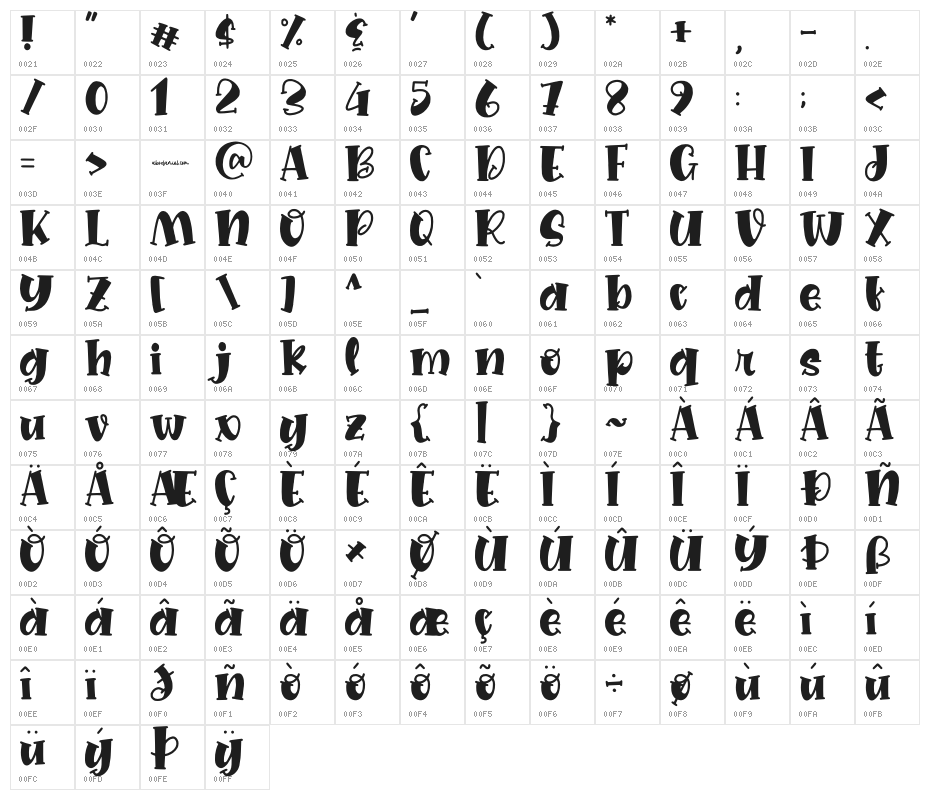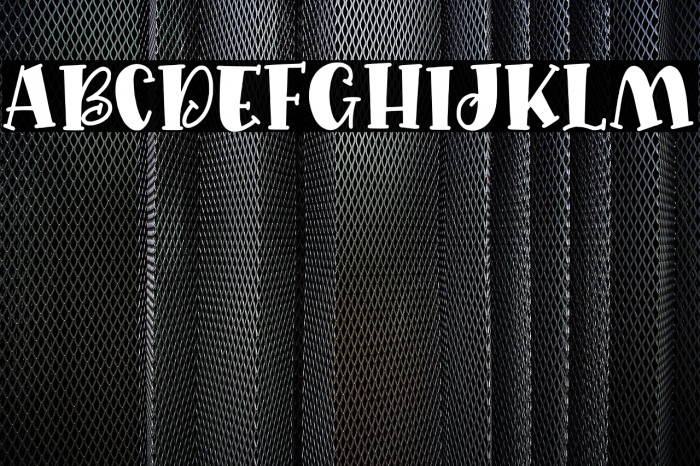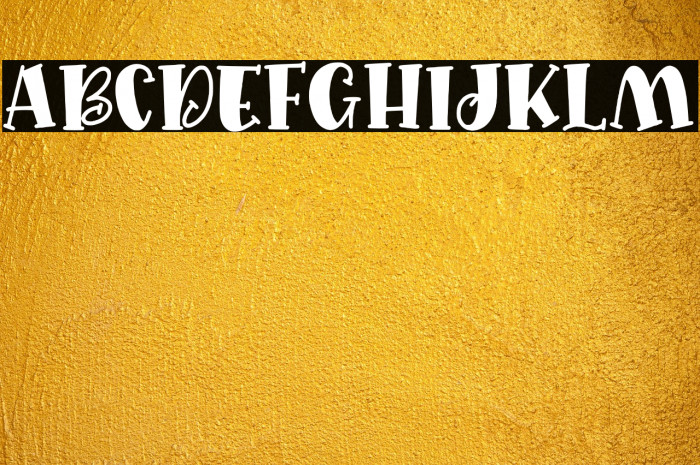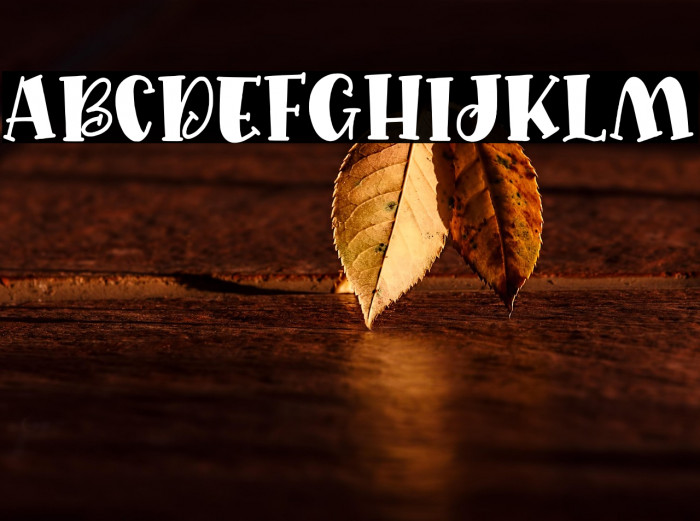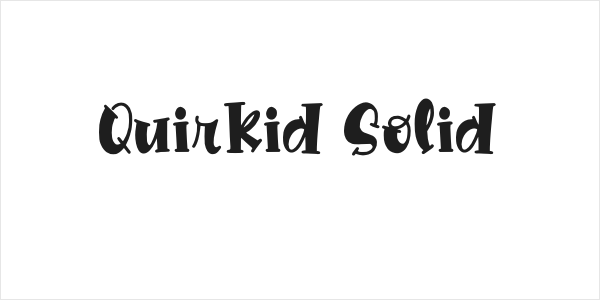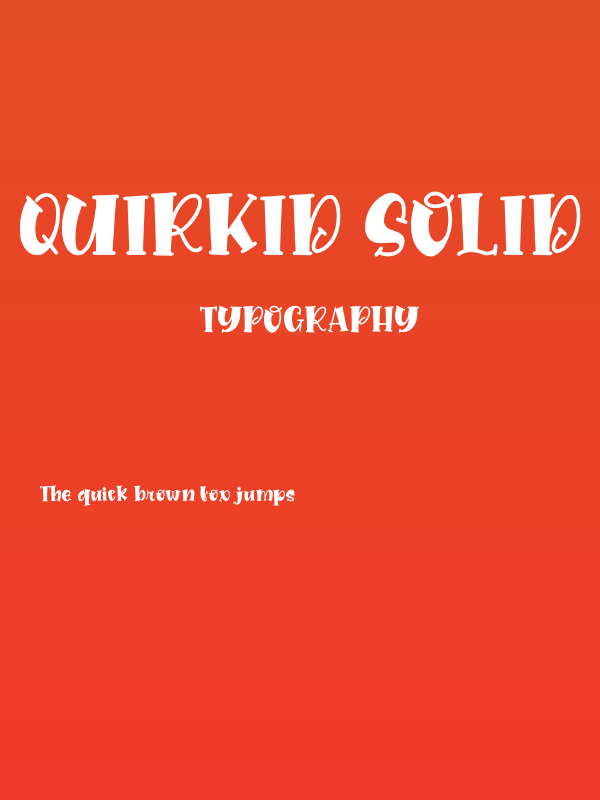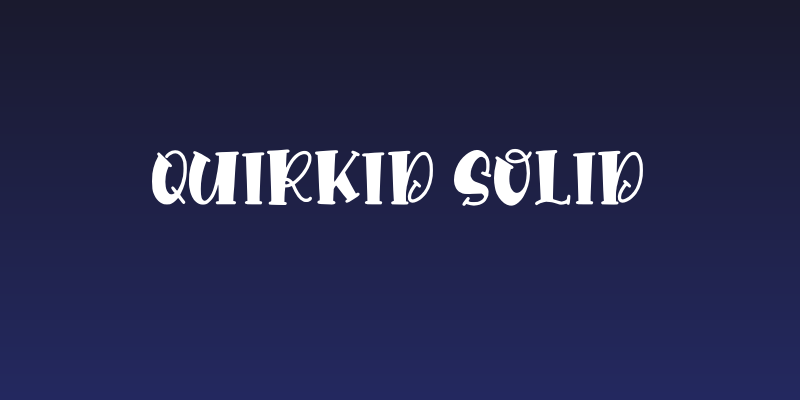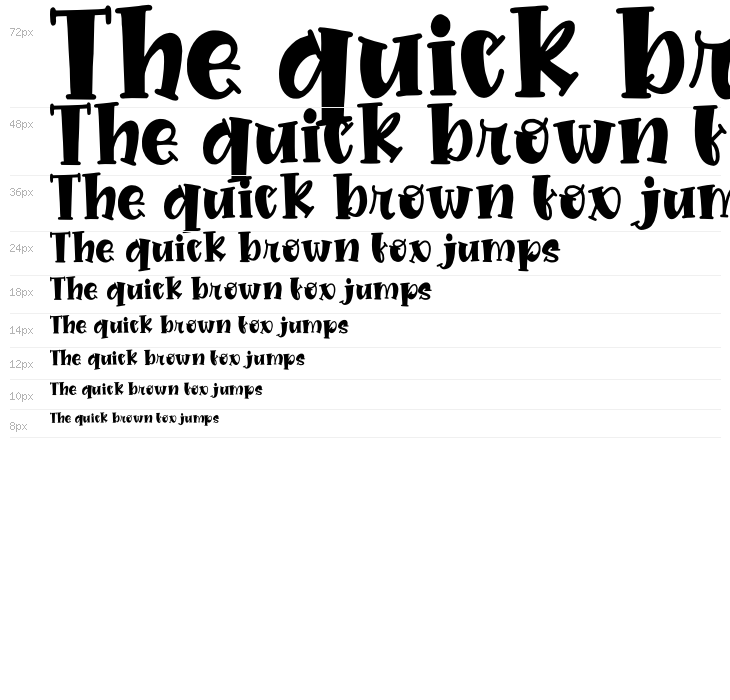
Quirkid Solid Font
Quirkid Solid Description
This font features a playful and whimsical style, characterized by its bold and dynamic letterforms. Each character exhibits a unique and quirky design, with varying stroke widths and unexpected curves that add a sense of movement and energy. The uppercase letters are particularly bold, while the lowercase letters maintain a consistent yet lively appearance. The numbers and special characters continue this theme, offering a cohesive and visually engaging set. The font's overall appearance is both fun and eye-catching, making it suitable for creative and informal applications.
| Proposed Projects | Ideal for children's books, playful branding, creative posters, and any project requiring a fun and energetic typeface. |